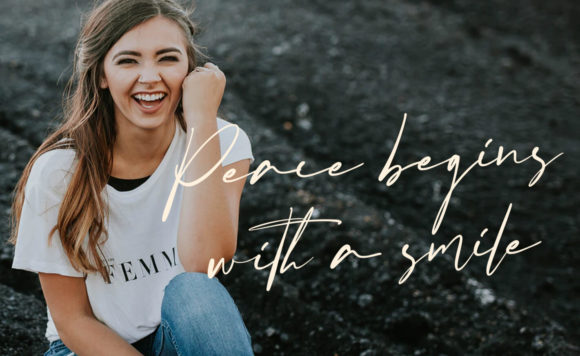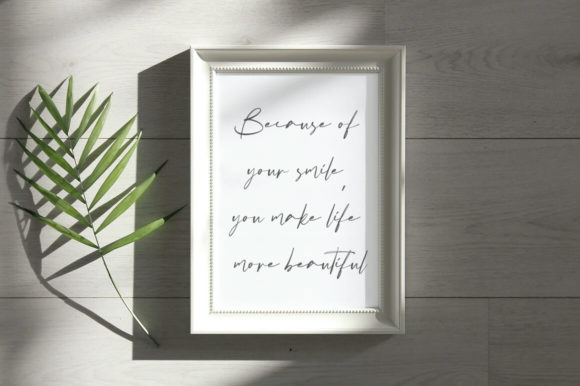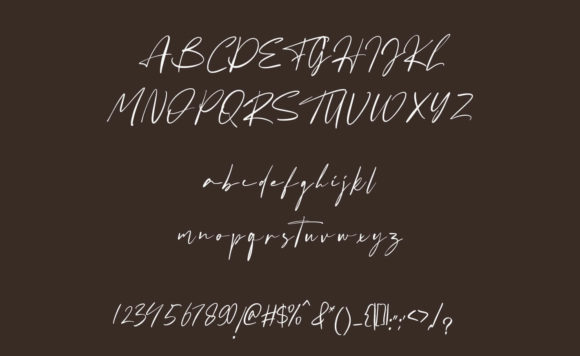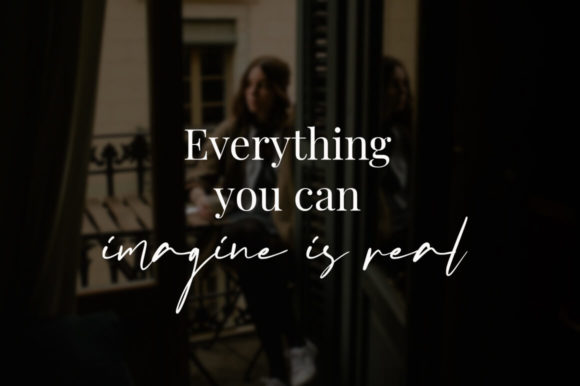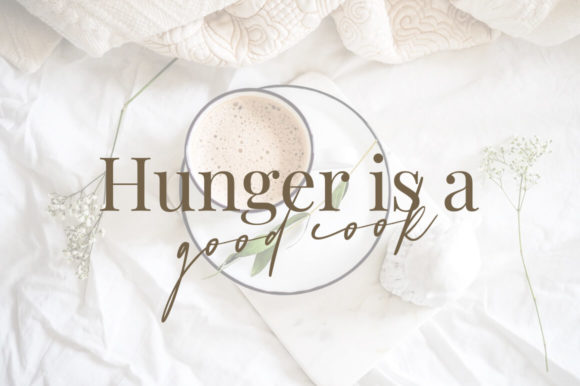
Introducing Fatigod Font: The Elegant Handwritten Touch for Your Designs
Are you looking for a font that adds a touch of elegance and sophistication to your designs? Look no further than Fatigod Font. This beautiful handwritten font is perfect for designers and crafters who want to add a personal and luxurious feel to their work. In this article, we’ll explore the features and benefits of Fatigod Font, and show you how it can elevate your designs to the next level.
What is Fatigod Font?
Fatigod Font is a stunning handwritten font that feels incredibly elegant and flowing. Its unique and intricate design makes it perfect for a wide range of applications, from wedding invitations and thank you cards to quotes, greeting cards, logos, and business cards. Whether you’re a designer, crafter, or DIY enthusiast, Fatigod Font is a versatile and beautiful addition to your toolkit.
Key Features of Fatigod Font
- Elegant and Flowing Design: Fatigod Font features a beautiful, cursive design that adds a touch of sophistication and elegance to any project.
- Handwritten Touch: The font’s handwritten feel makes it perfect for designs that require a personal and unique touch.
- Versatile: Fatigod Font can be used for a wide range of applications, from wedding invitations and greeting cards to logos and business cards.
- Easy to Read: Despite its intricate design, Fatigod Font is easy to read and understand, making it perfect for body text and headings.
Why Choose Fatigod Font?
There are many fonts available that claim to offer an elegant and handwritten touch, but Fatigod Font stands out from the crowd. Here are just a few reasons why:
- Unique Design: Fatigod Font features a unique and intricate design that sets it apart from other fonts.
- High-Quality: The font is designed to be high-quality and crisp, making it perfect for printing and digital applications.
Using Fatigod Font in Your Designs
Fatigod Font is incredibly versatile and can be used in a wide range of applications. Here are just a few ideas to get you started:
- Wedding Invitations: Add a touch of elegance and sophistication to your wedding invitations with Fatigod Font.
- Greeting Cards: Use Fatigod Font to create beautiful and unique greeting cards for any occasion.
- Logos and Branding: Use Fatigod Font to create a luxurious and sophisticated logo or brand identity.
- Business Cards: Add a touch of elegance to your business cards with Fatigod Font.
Tips and Tricks for Using Fatigod Font
Here are a few tips and tricks to help you get the most out of Fatigod Font:
- Use it Sparingly: Fatigod Font is a statement font, so use it sparingly to add emphasis and elegance to your designs.
- Pair it with Other Fonts: Pair Fatigod Font with other fonts to create a unique and interesting contrast.
Fatigod Font is a beautiful and elegant handwritten font that adds a touch of sophistication and luxury to any design. With its unique and intricate design, versatility, and ease of use, it’s perfect for designers and crafters of all levels. Whether you’re creating wedding invitations, greeting cards, logos, or business cards, Fatigod Font is a great choice. So why not give it a try and see how it can elevate your designs to the next level?